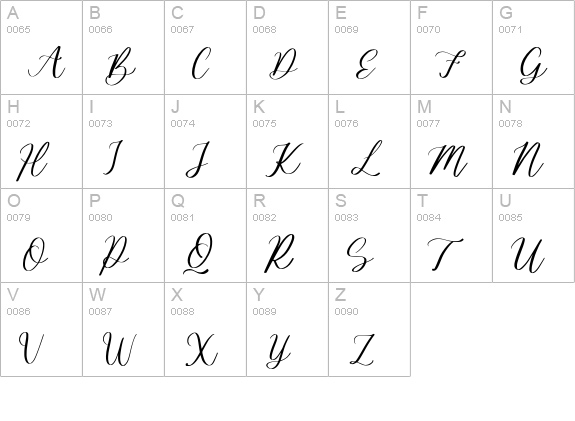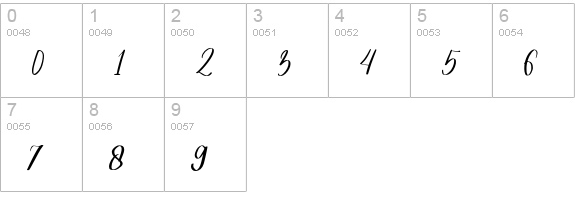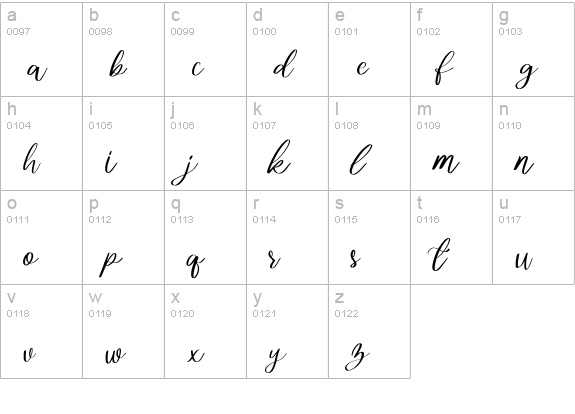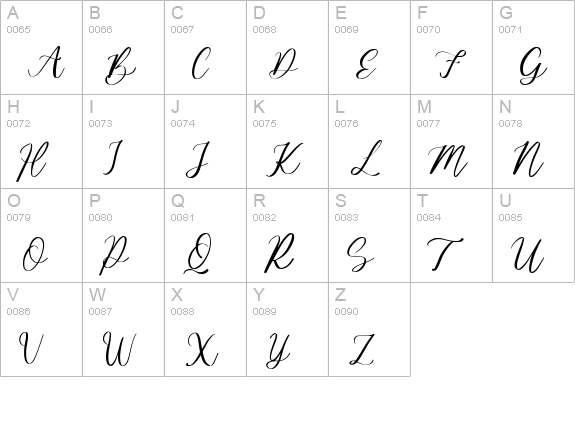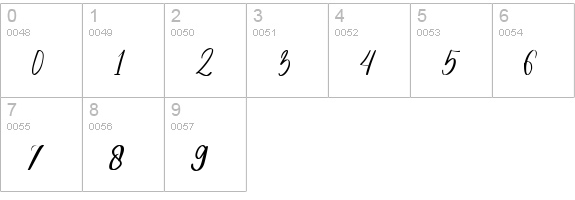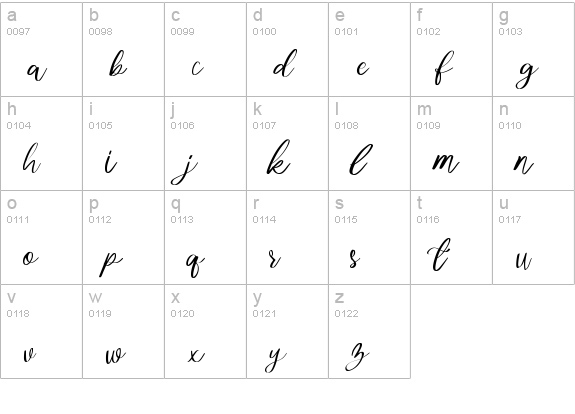
Banday Font Details
Banday is a demo font in the Fancy > Feminine category, designed by craftsupplyco. It has been downloaded 27 times and is available for Windows, Mac and Linux.
Banday font is a stylish and modern typeface that perfectly blends elegance and readability. Its clean lines and unique design make it suitable for a wide range of projects, from branding to editorial design. This versatile font includes a full set of characters, punctuation marks, and numerals, allowing you to create professional-looking designs with ease.